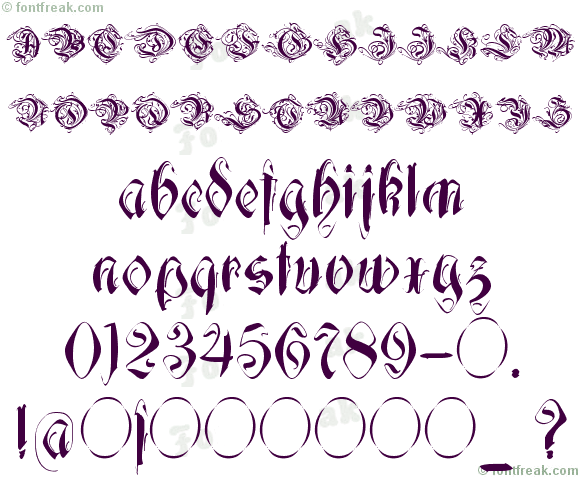
Decadentia
About Decadentia
Decadentia by Manfred Klein is a captivating decorative font that embodies an ornate elegance, making it a perfect choice for designs that demand a touch of sophistication. Released in 2002, this freeware font showcases a unique blend of artistic flair and classic typography. The font features a high contrast between thick and thin strokes, creating a sense of drama and visual interest. Its elaborate flourishes and decorative elements give it a distinctive character, while the spacing is thoughtfully designed to ensure readability even in intricate applications.
Decadentia is ideal for a variety of creative projects. It shines in wedding invitations, where its graceful curves can enhance the romantic feel of the occasion. Additionally, it is well-suited for movie posters, lending a touch of vintage charm to cinematic designs. Restaurant menus can also benefit from this font's sophisticated style, enticing patrons with an upscale visual presentation. Graphic designers will find it particularly useful for branding materials, creating logos that stand out with a flourish of creativity. Content creators looking to add a unique touch to their blogs or social media posts will also appreciate the distinct personality that Decadentia brings.
Targeting graphic designers, small business owners, and content creators, Decadentia offers a versatile option for those seeking to elevate their work. Its artistic nature allows for a range of applications, appealing to anyone wanting to make a memorable impression.
In summary, the Decadentia font free download provides an exceptional resource for anyone looking to infuse their projects with elegance and style. Its unique design elements and artistic flair set it apart, making it a standout choice in the world of typography.